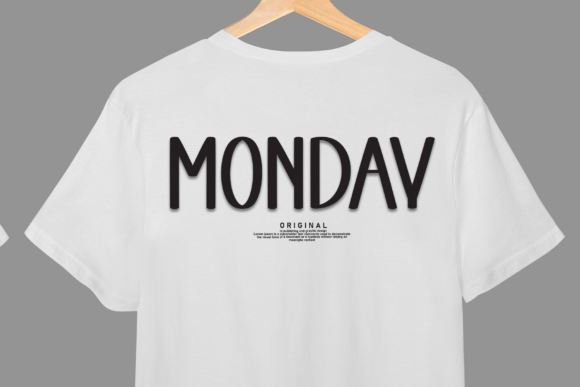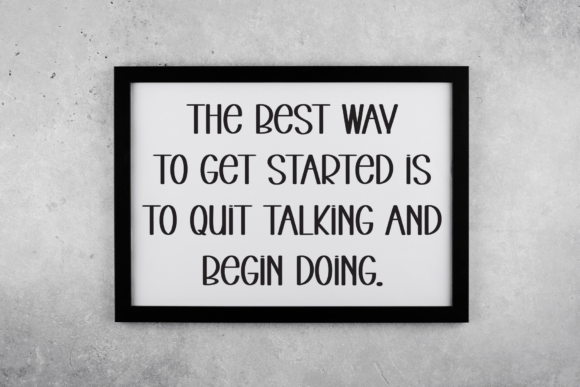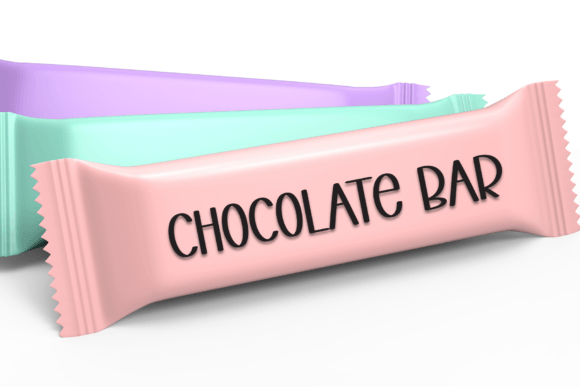
Introduction to Holiday December Font
β€œHoliday December” is a festive handwritten font that captures the cozy, cheerful spirit of the season.
Its charming, playful style is perfect for adding a personal touch to your holiday designs .
Key Features of Holiday December Font
Why Choose Holiday December Font?
Holiday December Font offers exceptional quality and versatility, making it a valuable addition to your design toolkit. Whether you’re creating for personal projects or commercial use, Holiday December Font delivers professional results.